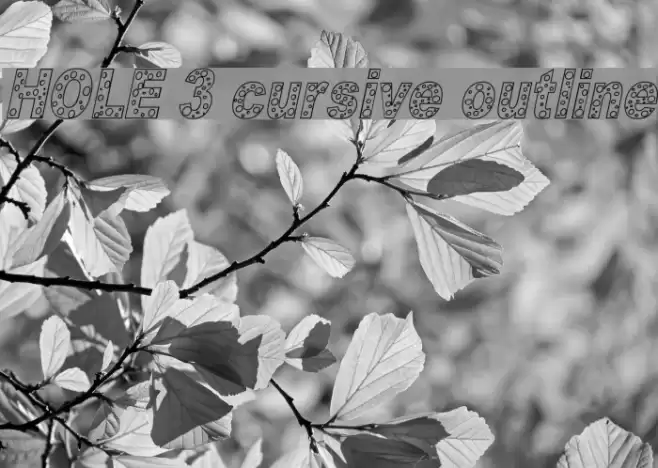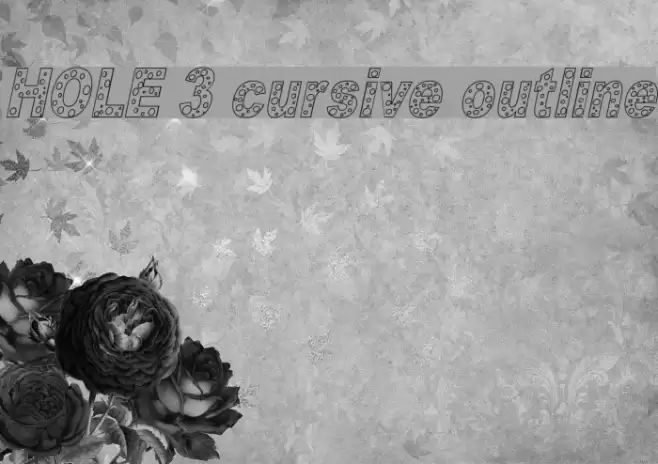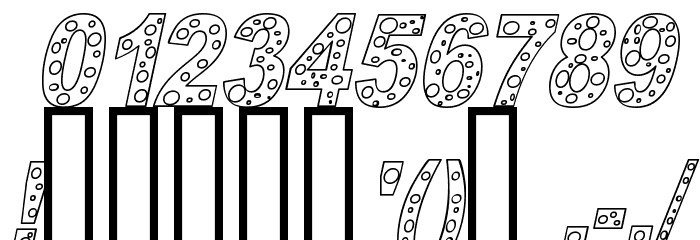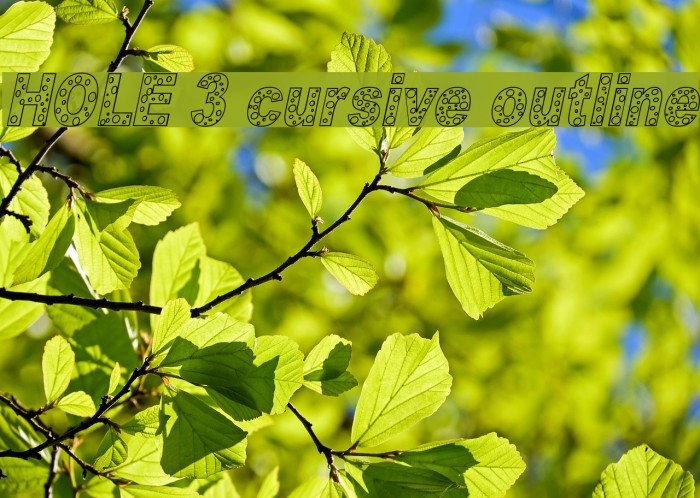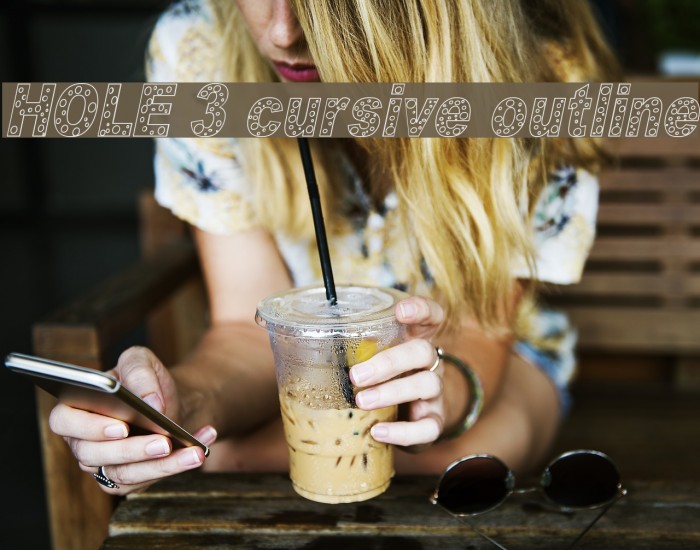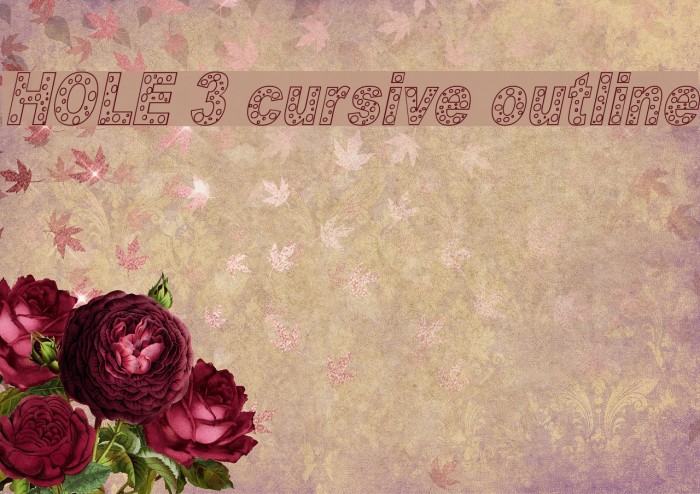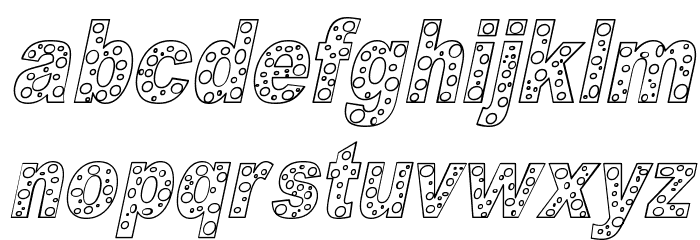
HOLE 3 cursive outline Font
HOLE 3 cursive outline Description
This playful and decorative font features a unique outline style with a dotted pattern inside each character. The uppercase and lowercase letters maintain a consistent design, with a slight slant that adds a dynamic, cursive-like feel. The numbers and special characters follow the same pattern, ensuring uniformity across the font. The overall design is bold and eye-catching, making it ideal for creative projects that require a fun and engaging typeface. The dotted pattern within the outlines adds a layer of texture, enhancing its visual appeal and making it stand out in any design context.
A bold, decorative font with a dotted outline pattern and a cursive-like slant from bubble letter fonts.
- Proposed Projects: Ideal for children's books, playful branding, party invitations, and creative posters.